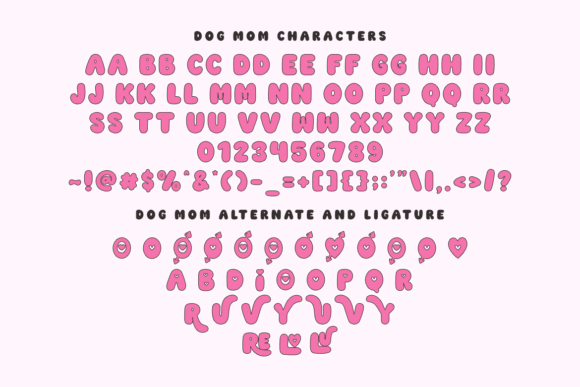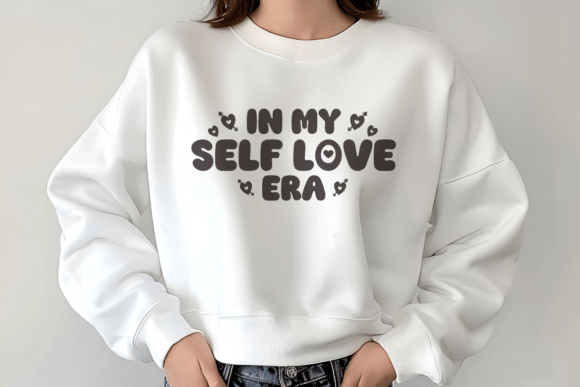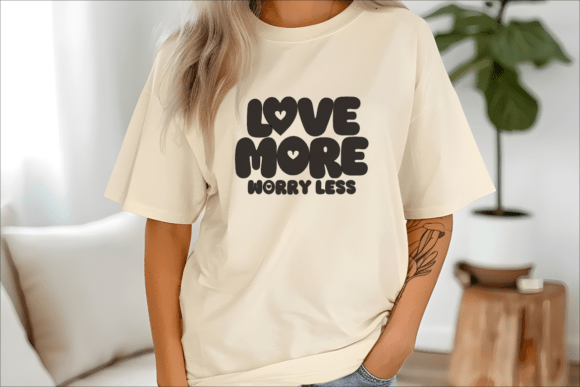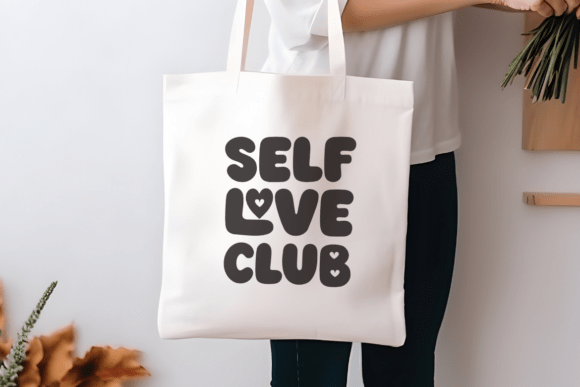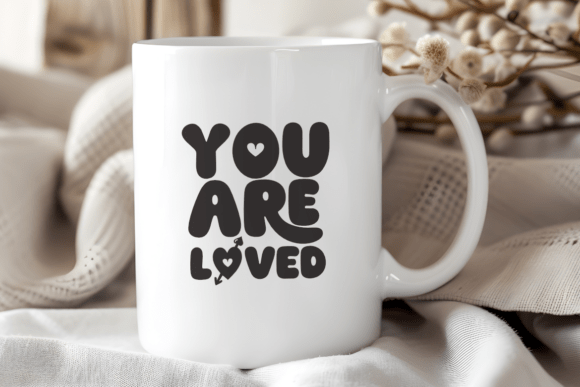
Bring Your Ideas to Life with Dog Mom Font: A Charming and Cute Bubble Font
Are you a designer, crafter, or DIY enthusiast looking for a font that can add a touch of playfulness and whimsy to your projects? Look no further than the Dog Mom font, a charming and cute bubble font that’s perfect for creating eye-catching headlines, posters, social media graphics, and branding. With its soft curves and bold appearance, this delightful font is sure to bring your ideas to life and make your designs stand out.
What is Dog Mom Font?
Dog Mom font is a type of bubble font that’s designed to resemble handwritten letters with a playful and carefree vibe. Its soft, rounded curves and bold lines make it a perfect choice for designs that require a friendly and approachable feel. Whether you’re creating a poster for a pet store, a social media graphic for a dog daycare, or a branding identity for a pet food company, Dog Mom font is sure to add a touch of warmth and personality to your designs.
Characteristics of Dog Mom Font
So, what makes Dog Mom font so special? Here are some of its key characteristics:
- Soft curves: Dog Mom font features soft, rounded curves that give it a friendly and approachable feel.
- Bold appearance: The font has a bold and eye-catching appearance that’s perfect for creating headlines and titles.
- Playful vibe: Dog Mom font has a playful and carefree vibe that’s perfect for designs that require a fun and whimsical touch.
- Versatile: The font is versatile and can be used for a wide range of design projects, from posters and social media graphics to branding and packaging.
Uses of Dog Mom Font
So, what can you use Dog Mom font for? The possibilities are endless! Here are some ideas to get you started:
- Posters: Use Dog Mom font to create eye-catching posters for pet stores, dog daycares, pet food companies, and other pet-related businesses.
- Social media graphics: Create social media graphics for pet-related businesses or personal profiles with a fun and playful touch.
- Branding: Use Dog Mom font to create a branding identity for pet-related businesses, such as pet food companies, pet stores, or dog daycares.
- Crafting: Use Dog Mom font to add a personal touch to your crafting projects, such as handmade cards, gift tags, or scrapbooking pages.
Why Choose Dog Mom Font?
So, why should you choose Dog Mom font for your design projects? Here are some reasons:
- Unique and playful: Dog Mom font is a unique and playful font that can add a touch of whimsy to your designs.
- Easy to read: The font is easy to read, even in small sizes, making it perfect for a wide range of design projects.
- Versatile: Dog Mom font is versatile and can be used for a wide range of design projects, from posters and social media graphics to branding and packaging.
- High-quality: The font is high-quality and can be used for both personal and commercial projects.
In conclusion, Dog Mom font is a charming and cute bubble font that’s perfect for designers, crafters, and DIY enthusiasts looking to add a touch of playfulness and whimsy to their projects. With its soft curves, bold appearance, and versatile nature, this delightful font is sure to bring your ideas to life and make your designs stand out. Whether you’re creating posters, social media graphics, branding, or crafting projects, Dog Mom font is a great choice. So why not give it a try and see how it can elevate your designs?
- Dog Mom font is a charming and cute bubble font that’s perfect for adding a touch of playfulness to your designs.
- The font features soft curves, bold appearance, and a playful vibe.
- Dog Mom font is versatile and can be used for a wide range of design projects.
- The font is easy to read, high-quality, and perfect for both personal and commercial projects.